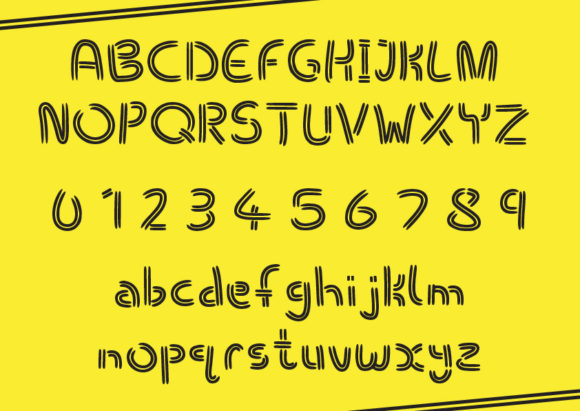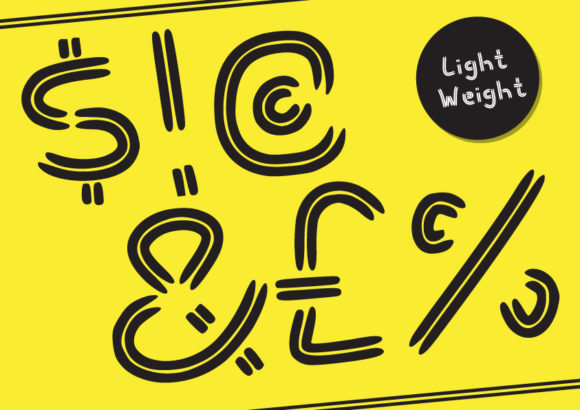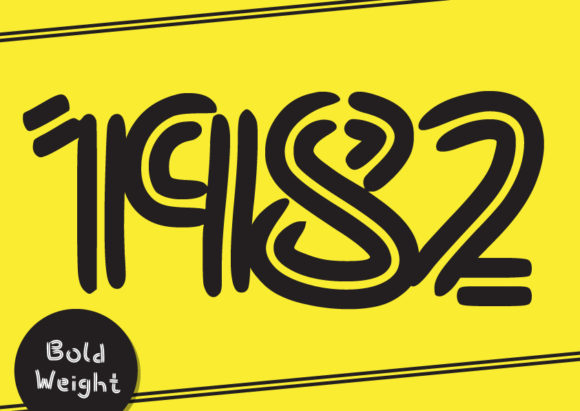
Introducing Double Font: The Ultimate Sports-Themed Font for Designers and Crafters
Are you tired of using the same old fonts for your sports-themed designs? Look no further! Double Font is here to revolutionize the way you create engaging and fun designs. This casual and sports-themed font is perfect for designers and crafters who want to add a touch of personality to their work. In this article, we’ll dive into the features and benefits of Double Font, and explore how it can elevate your designs to the next level.
What is Double Font?
Double Font is a unique and playful font that is specifically designed for sports-themed designs. It’s a versatile font that comes in three distinct weights: bold, light, and regular. This means you can use Double Font for a wide range of projects, from bold and eye-catching headlines to subtle and elegant body text.
Key Features of Double Font
- Three distinct weights: Double Font comes in bold, light, and regular weights, giving you the flexibility to use it for various design projects.
- Casual and fun: Double Font has a playful and energetic vibe that’s perfect for sports-themed designs.
- Sports-themed: The font is specifically designed for sports-themed designs, making it ideal for projects such as team logos, jerseys, and sports equipment.
- Easy to read: Double Font is clean and easy to read, making it perfect for body text and headlines.
Benefits of Using Double Font
So, why should you choose Double Font for your design projects? Here are just a few benefits of using this amazing font:
- Adds personality to your designs: Double Font is a unique and playful font that can add a touch of personality to your designs.
- Increases engagement: The fun and casual vibe of Double Font can help increase engagement and make your designs more memorable.
- Versatile: Double Font can be used for a wide range of design projects, from sports-themed designs to general design projects.
Who Can Use Double Font?
Double Font is perfect for a wide range of designers and crafters, including:
- Graphic designers: Double Font is perfect for graphic designers who want to create engaging and fun sports-themed designs.
- Sports teams: Sports teams can use Double Font for team logos, jerseys, and other sports equipment.
- Crafters: Crafters who enjoy making sports-themed crafts, such as iron-on designs and signs, can use Double Font to add a personal touch to their projects.
- Sign makers: Sign makers can use Double Font to create eye-catching and engaging signs for sports events and teams.
Double Font is a unique and playful sports-themed font that’s perfect for designers and crafters who want to add a touch of personality to their work. With its three distinct weights, casual and fun vibe, and ease of use, Double Font is the ultimate font for sports-themed designs. Whether you’re a graphic designer, sports team, crafter, or sign maker, Double Font is the perfect choice for your next design project. So why wait? Download Double Font today and start creating engaging and fun designs that will leave a lasting impression!